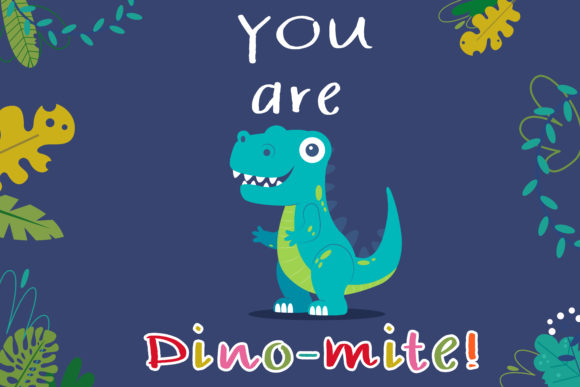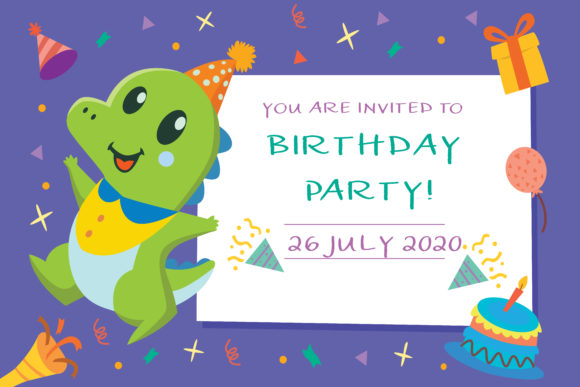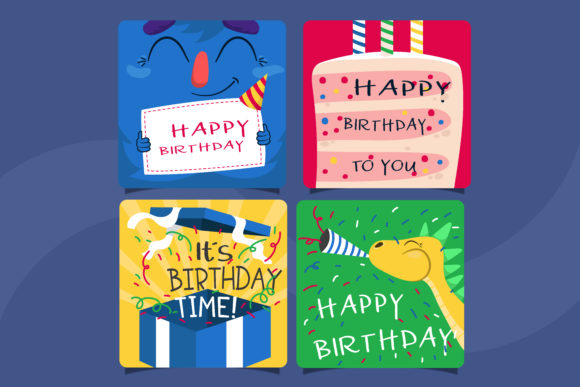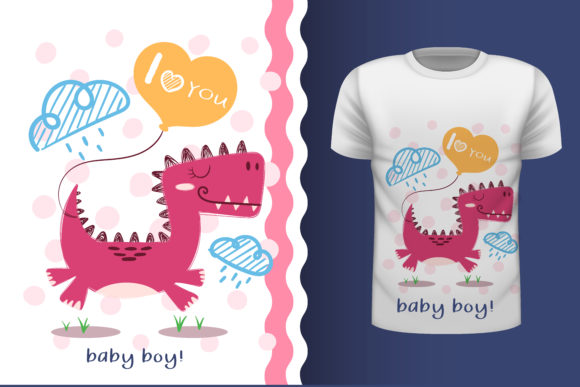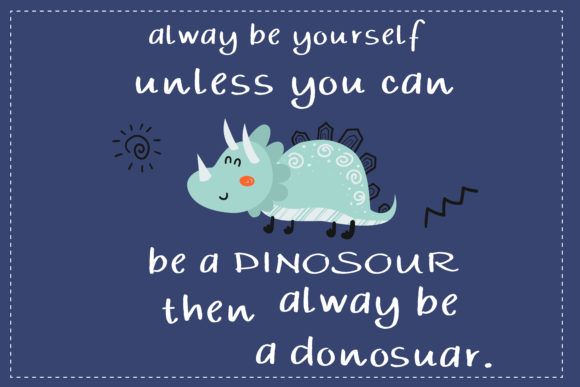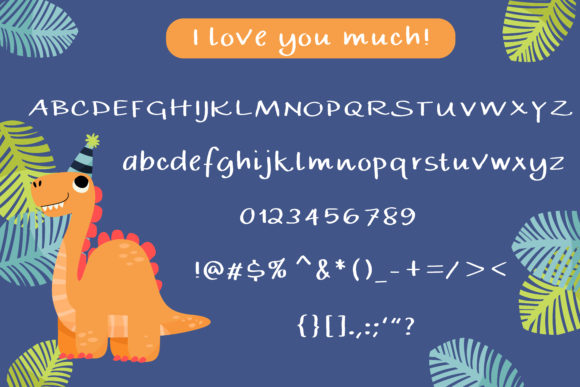
Kid Dinosaur Font – Free Download
Introduction to Kid Dinosaur Font
Kid dinosaur embodies fun, quirkiness and authenticity.
This enchanting handwritten font will turn any creative idea into a true standout .
Key Features of Kid Dinosaur Font
Why Choose Kid Dinosaur Font?